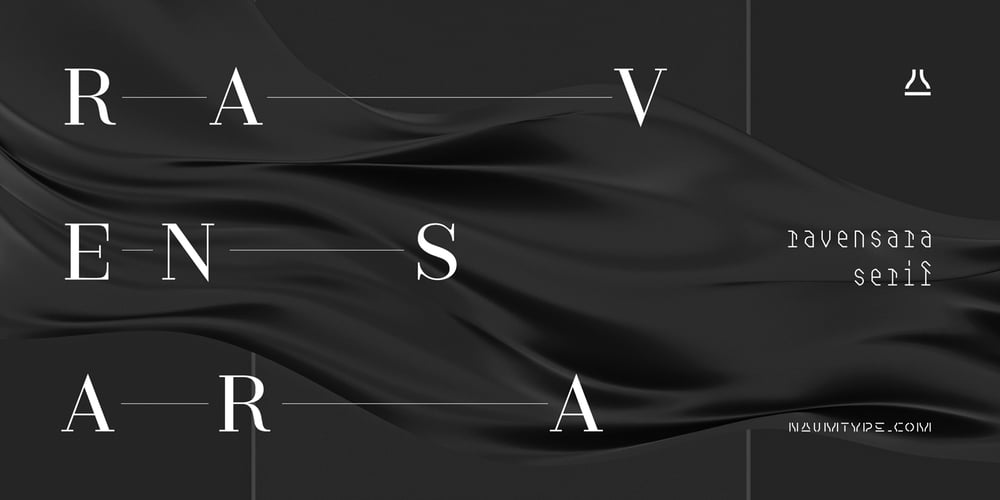
Ravensara Serif Font Family was designed by Peter Bushuev and published by NaumType. Ravensara Serif contains 7 styles and family package options. Ravensara Serif – elegant high contrast classic serif. Style of the typeface originates in a classic Didone but took a step to simplify some letter forms and make Didone feel more contemporary. Ravensara Serif is a part of the Ravensara superfamily, united by the same anatomy, which currently also includes Ravensara Sans and Ravensara Stencil. Ravensara Serif, despite its ancient roots and due to simplified and smoothed forms, can be used in a variety of different styles. It’s a perfect choice for bold headlines, oversize typography, fashion logos, branding, identity, website design, album art, covers, posters, advertising, etc. It is available in 7 weights, including Thin, Light, Regular, Medium, SemiBold, Bold and Black. Ravensara Serif extends multilingual support to Basic Latin, Western European, Euro, Catalan, Baltic, Turkish, Central European, Pan African Latin and Afrikaans.